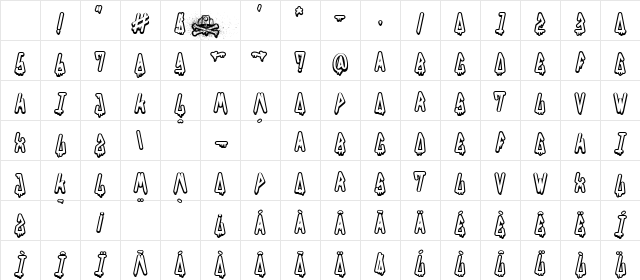
FAT&CAP is a composed and adaptable typeface that performs quietly and consistently across a wide range of design contexts. Its bold stroke weight gives it real presence on the page.